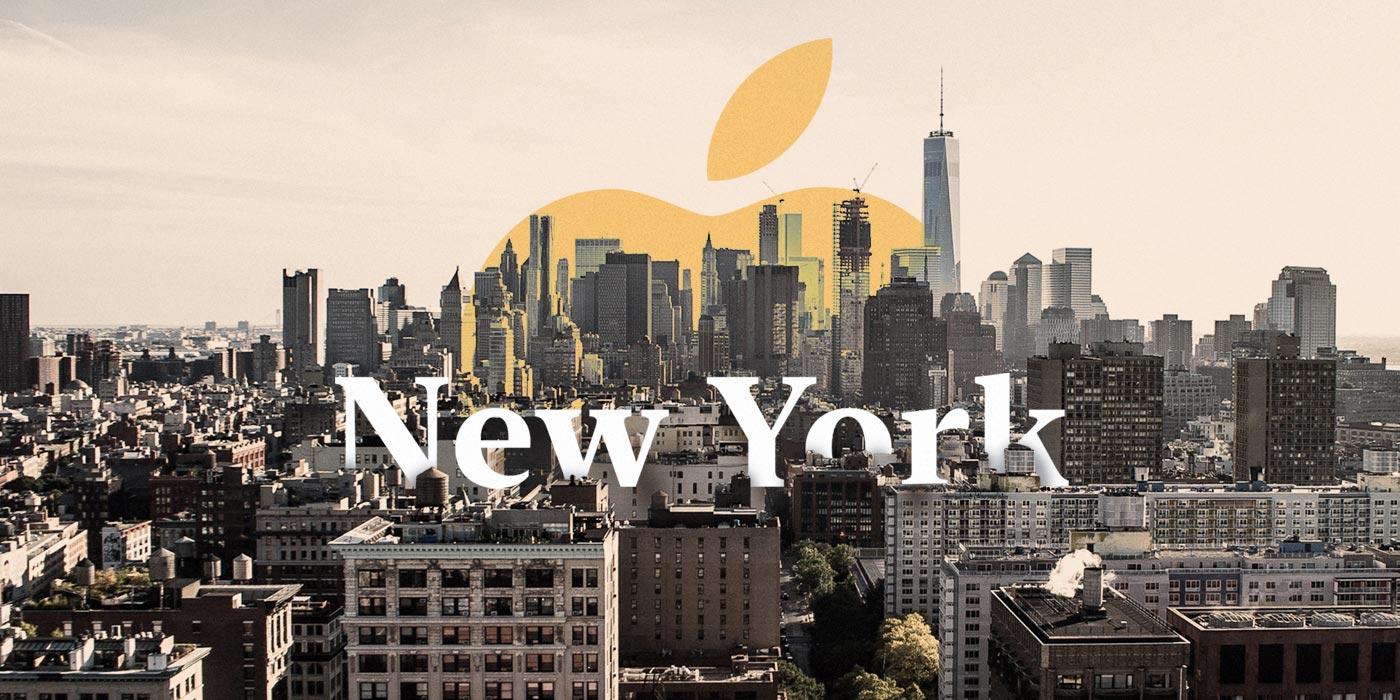
Apple introduces New York font, an all-new serif
The new typeface is "designed to work on its own as well as alongside San Francisco," the system font for iOS, macOS, and tvOS since 2014.